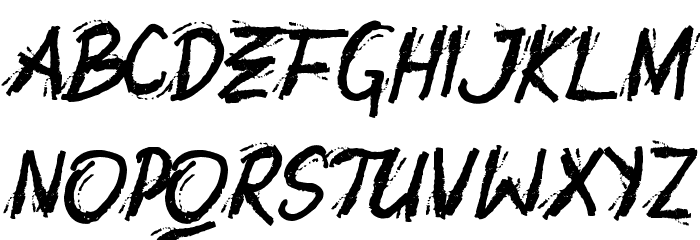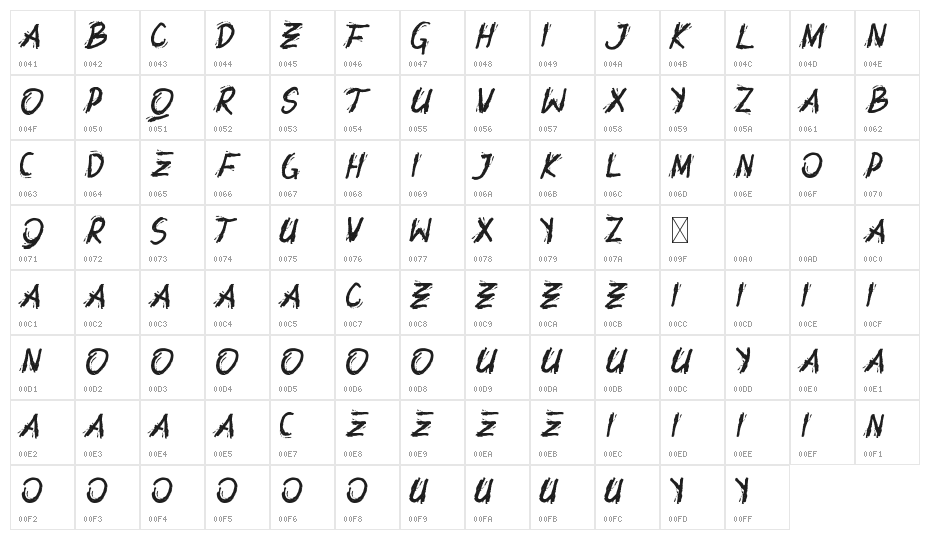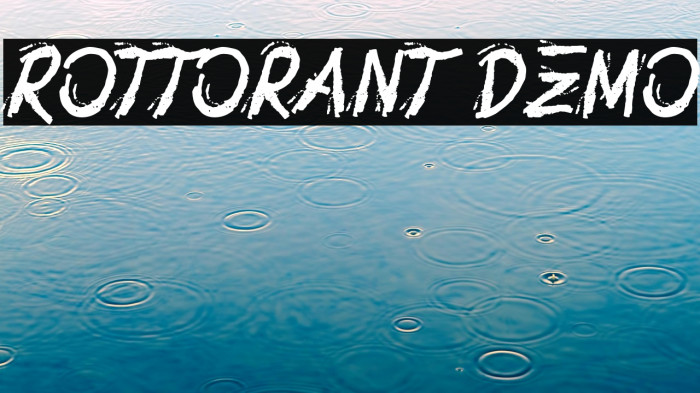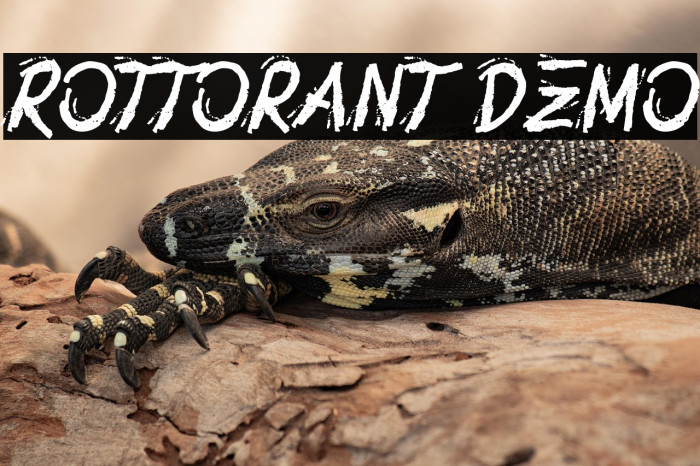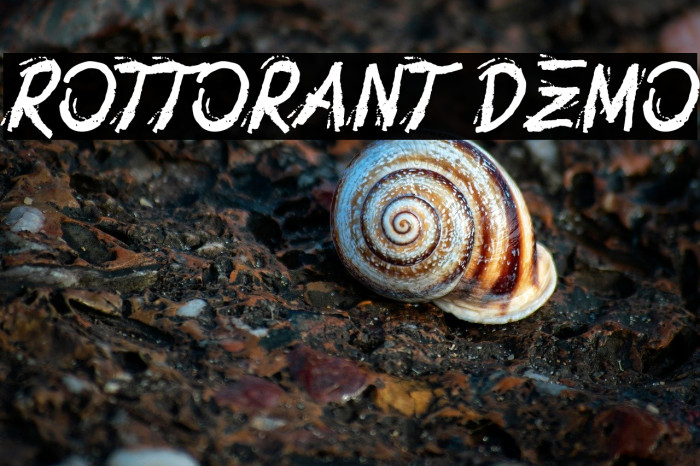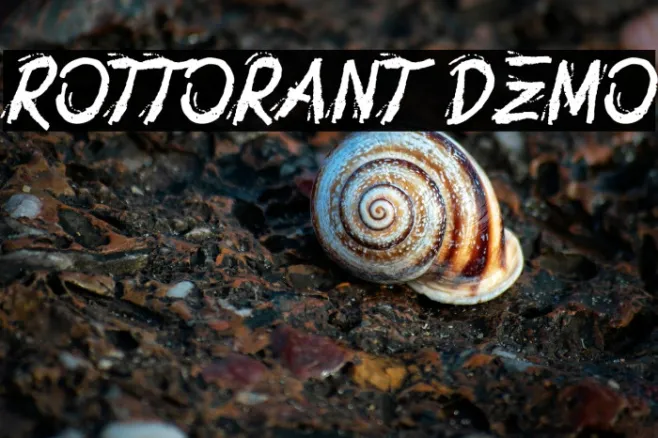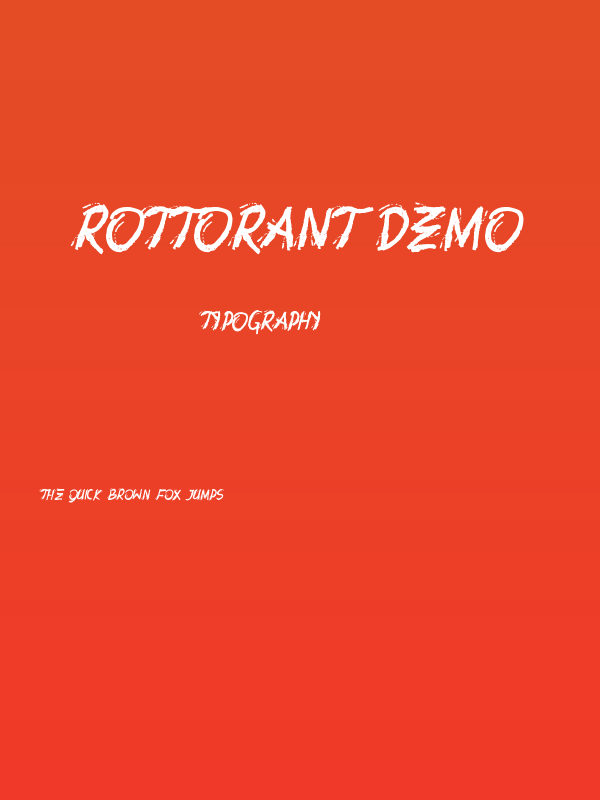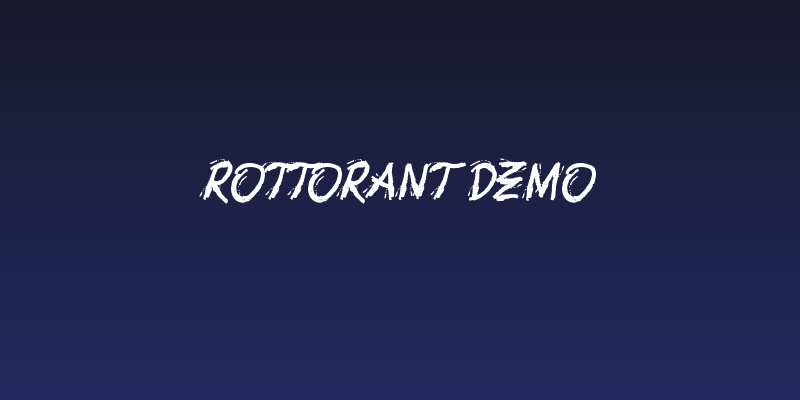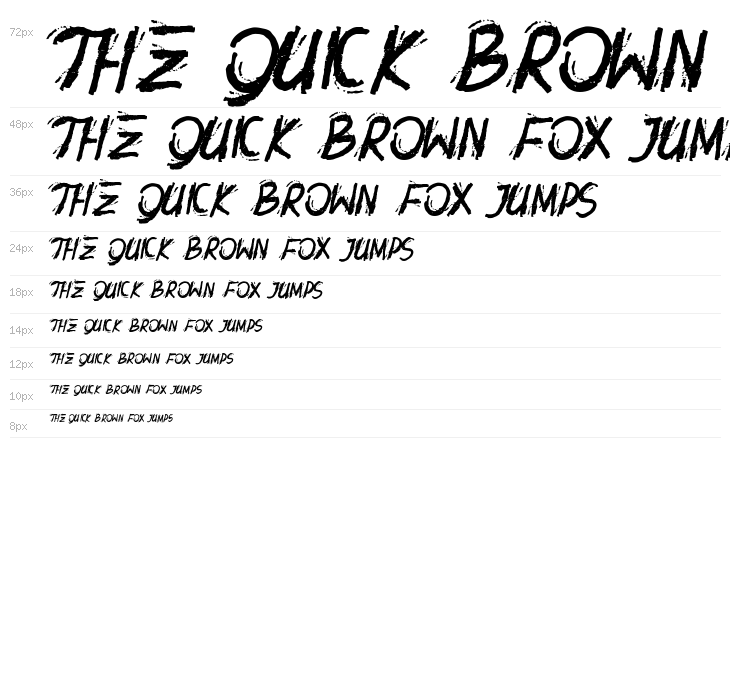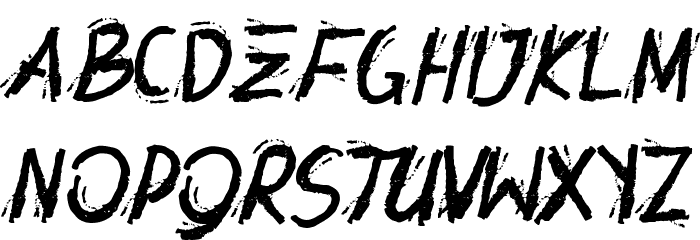
Rottorant Demo Font
Rottorant Demo Description
This font exhibits a bold, expressive style with a brush-like texture that gives it a dynamic and energetic appearance. The strokes are uneven, adding a sense of movement and spontaneity. Each character is distinct, with varying thickness in the strokes, contributing to a high contrast look. The overall design is reminiscent of hand-painted lettering, making it ideal for projects that require a personal, artistic touch. The uppercase letters are particularly striking, with a sense of urgency and flair that commands attention.
| Proposed Projects | Ideal for artistic projects, posters, branding, and any design needing a bold, expressive touch. |